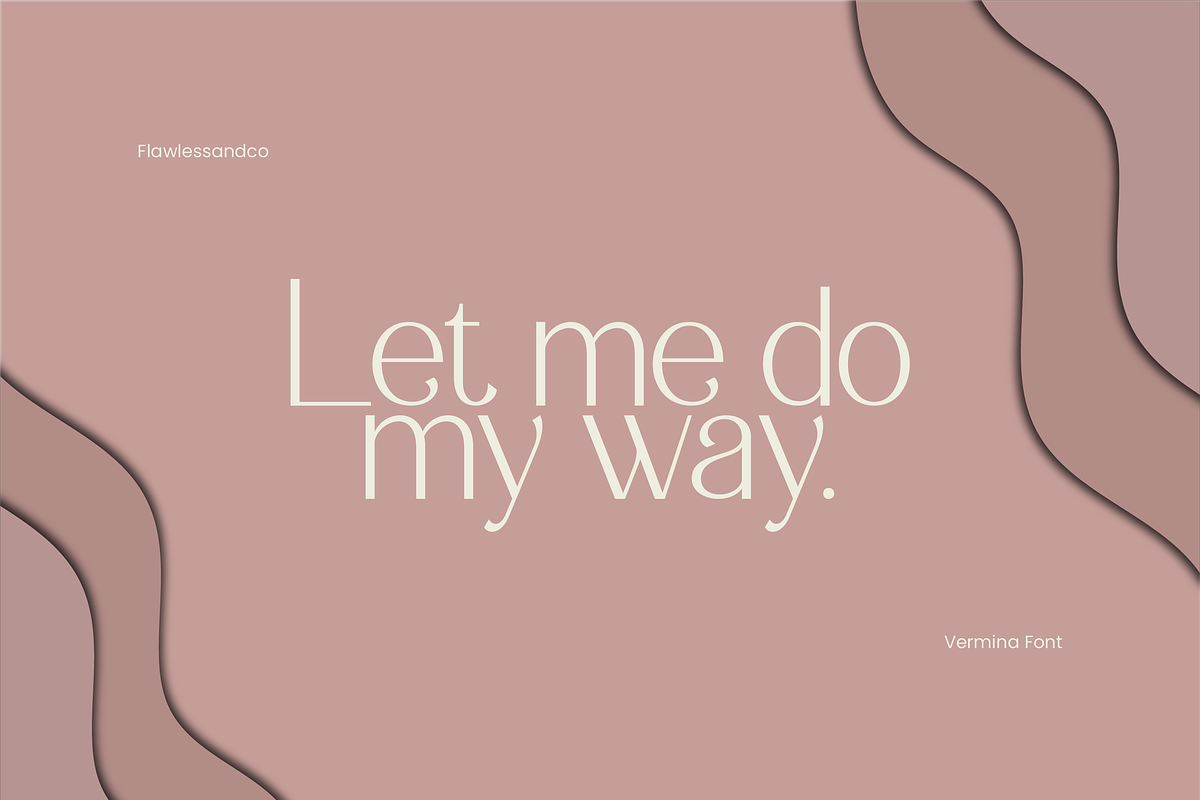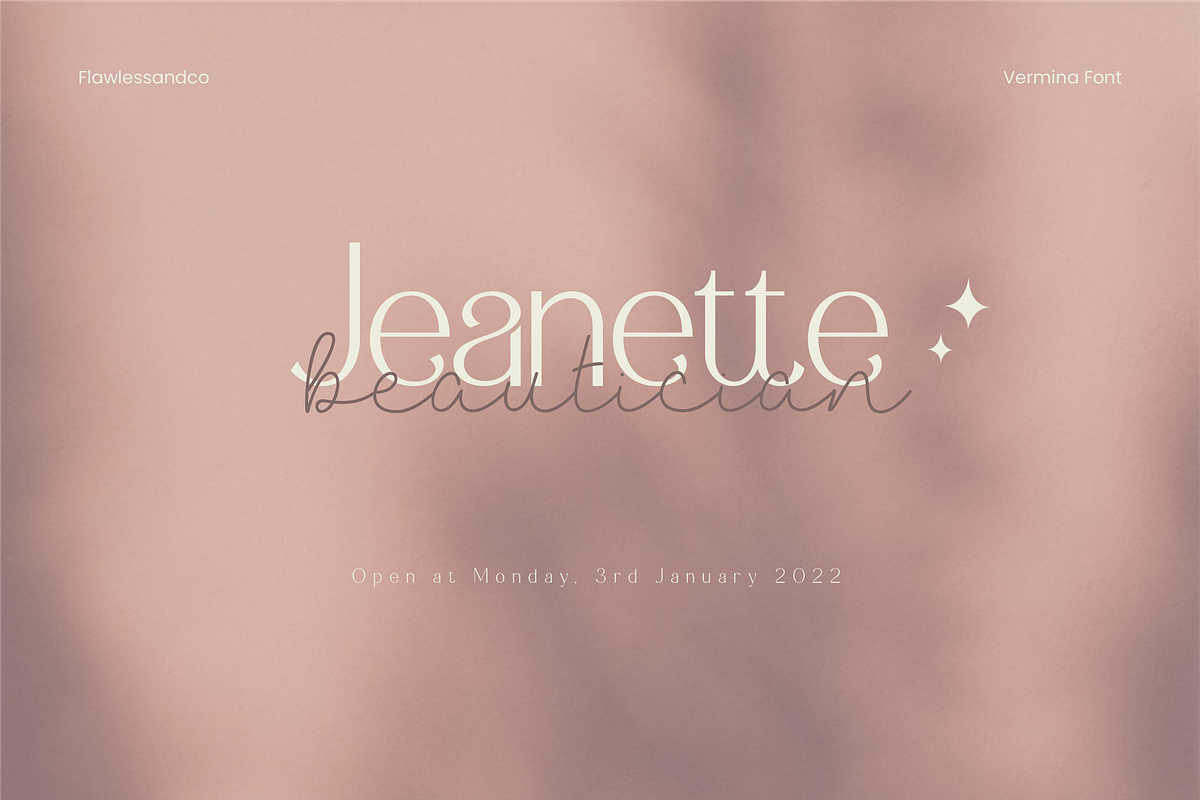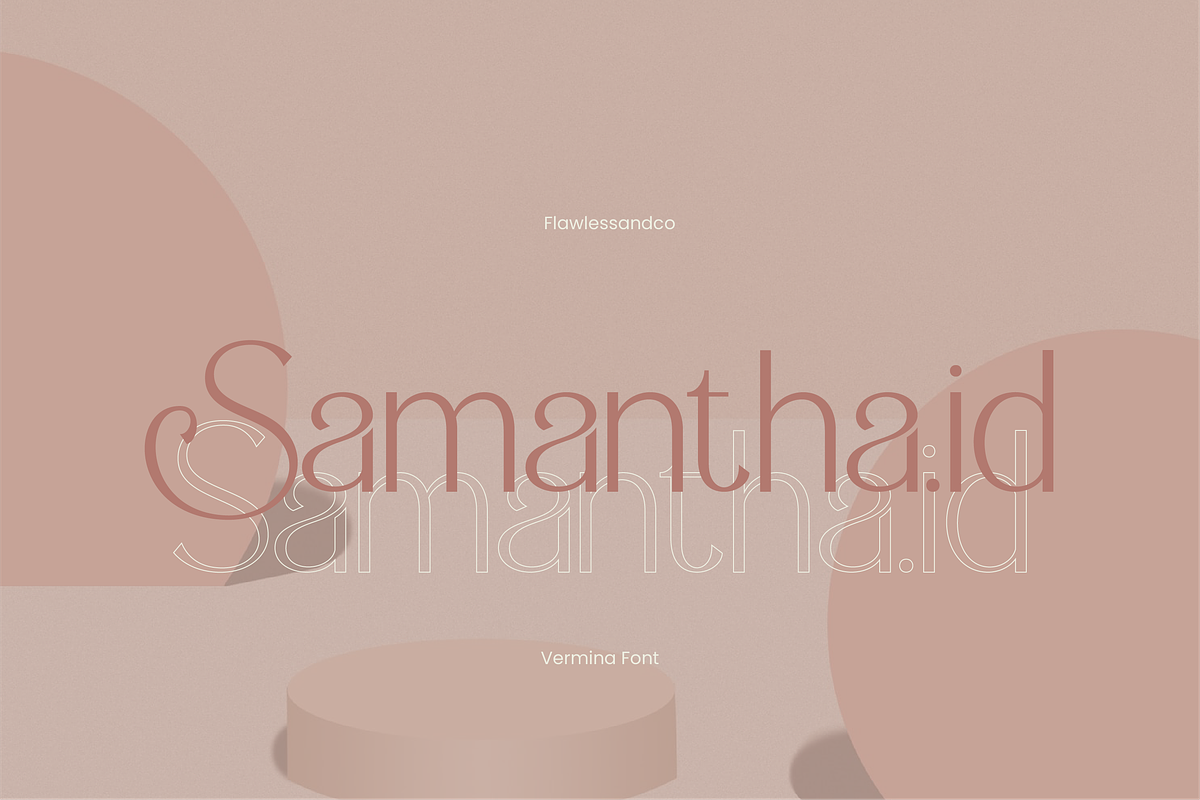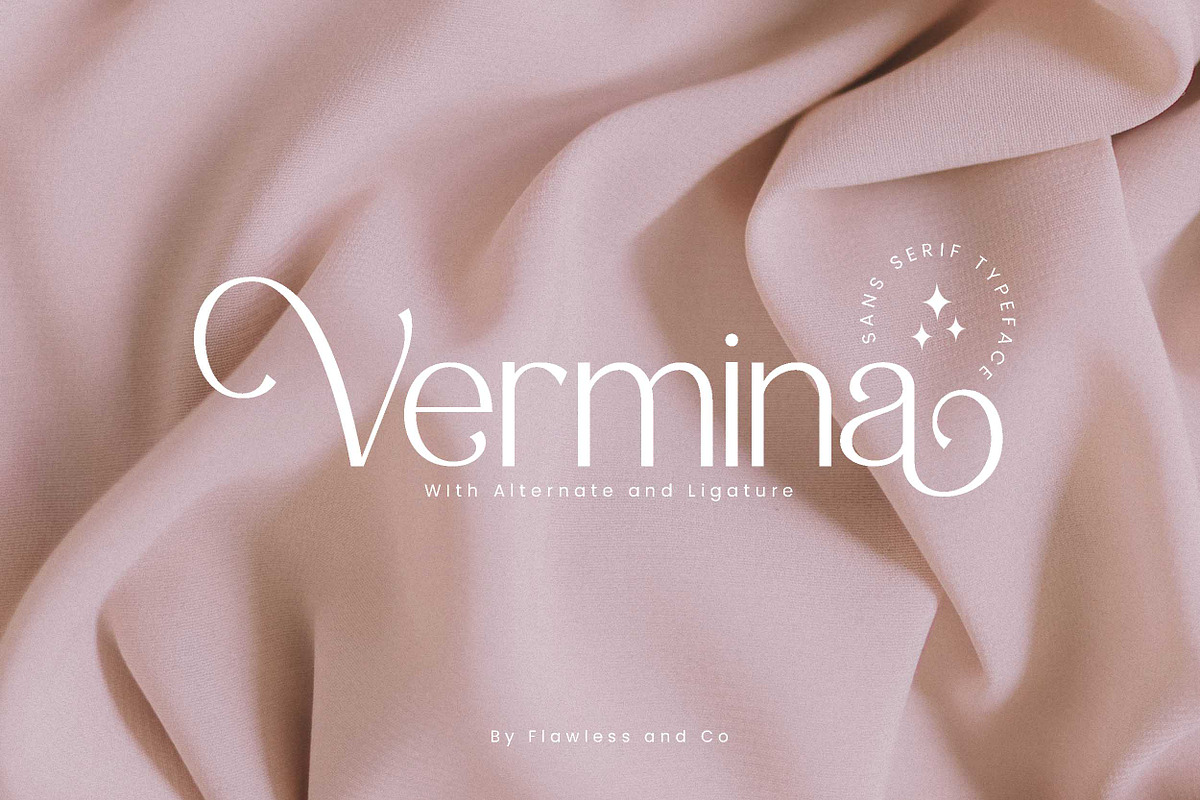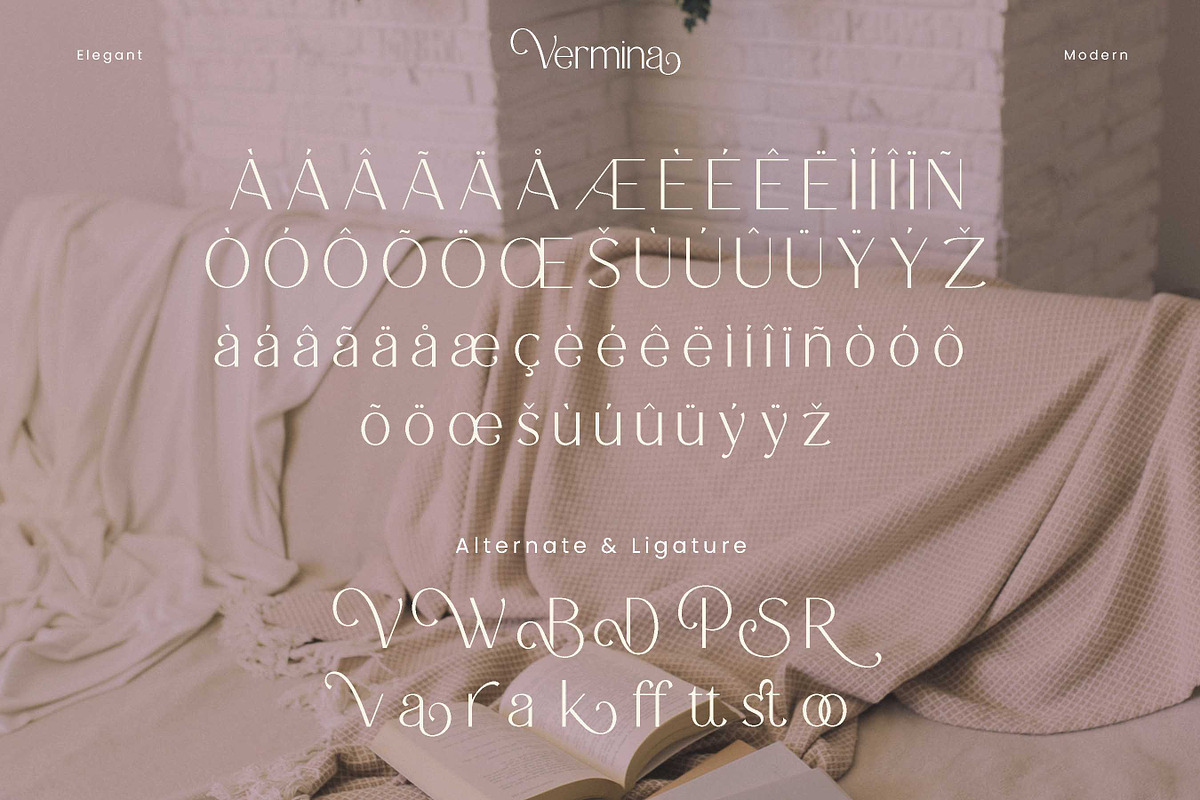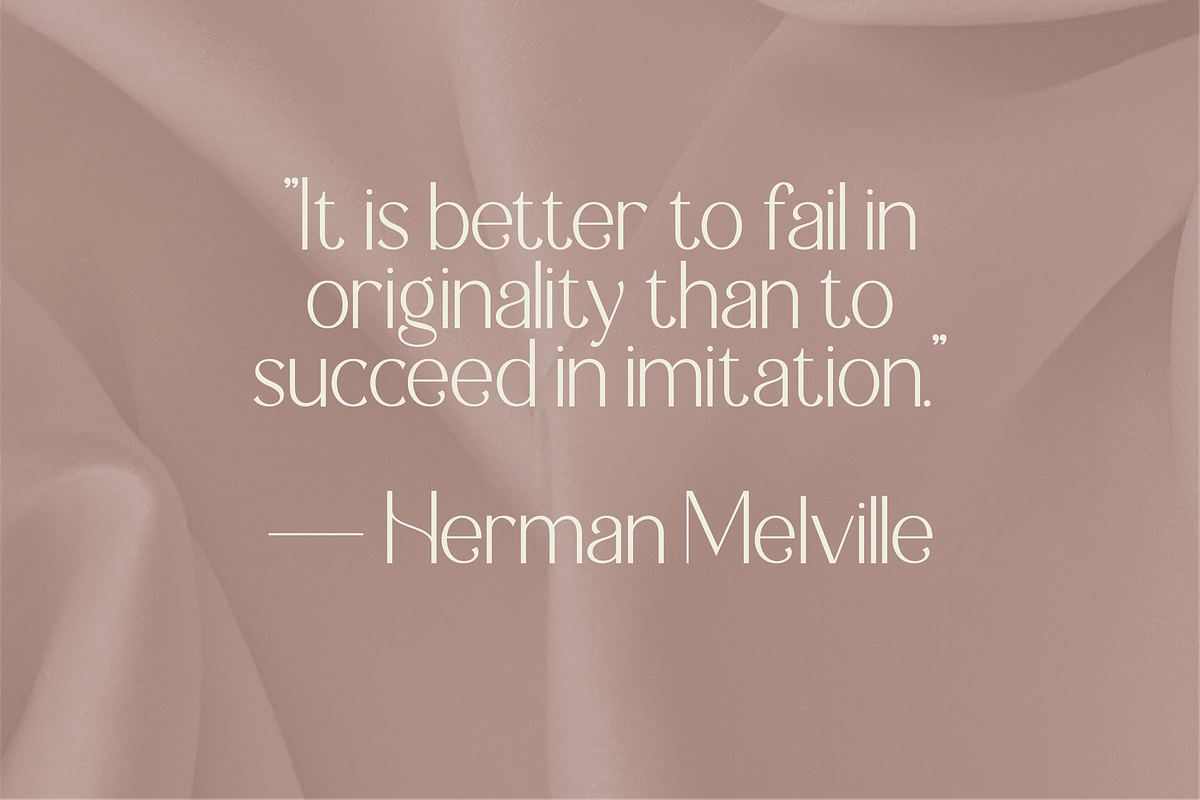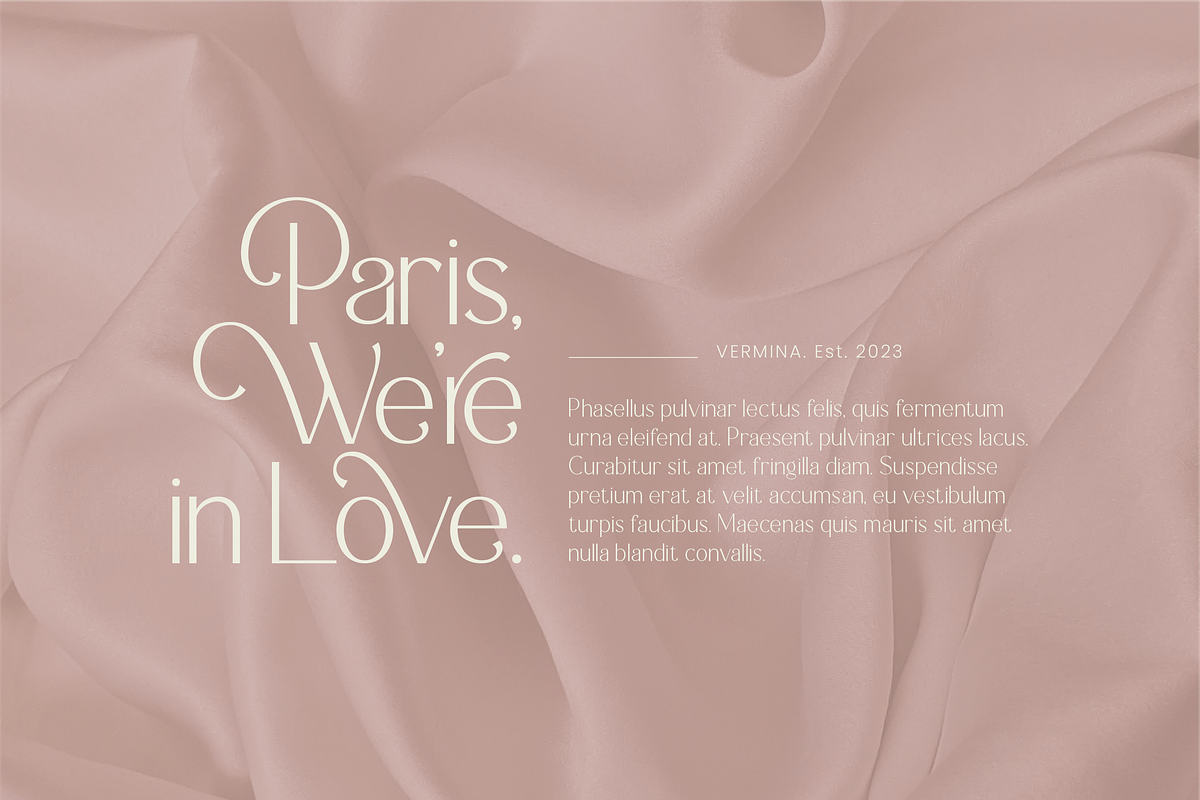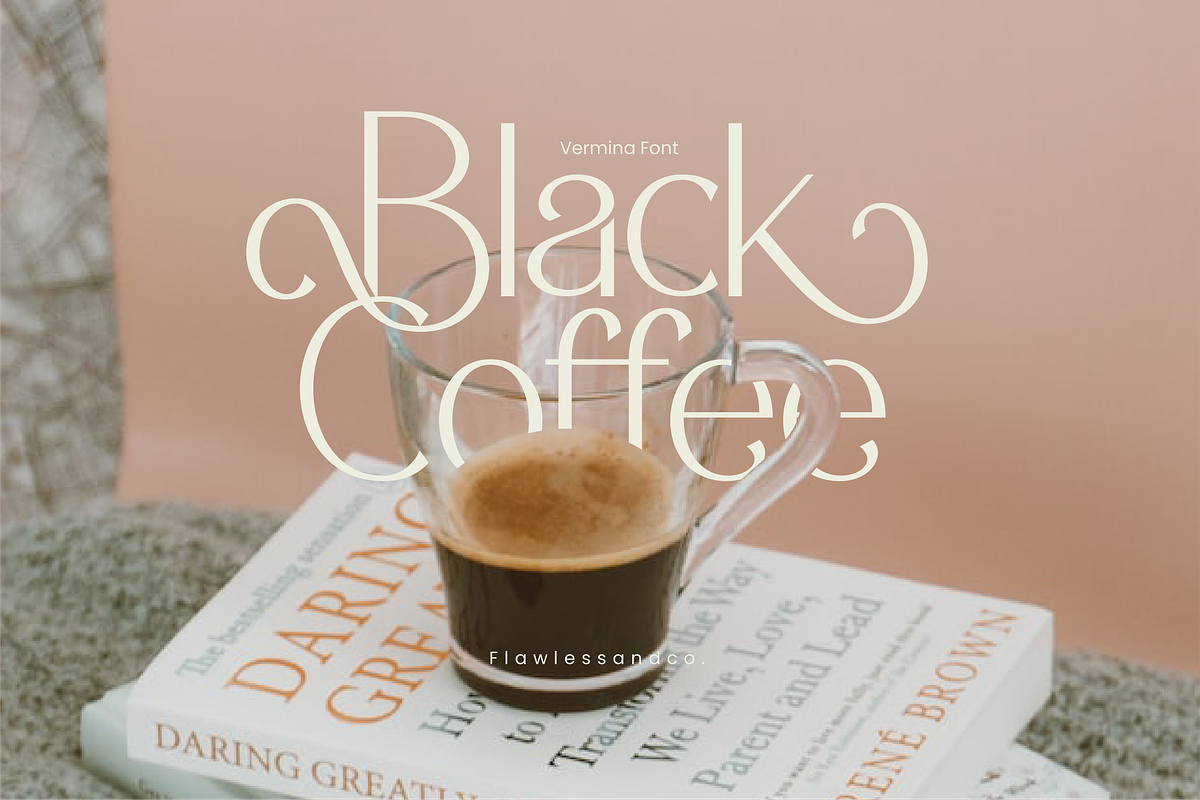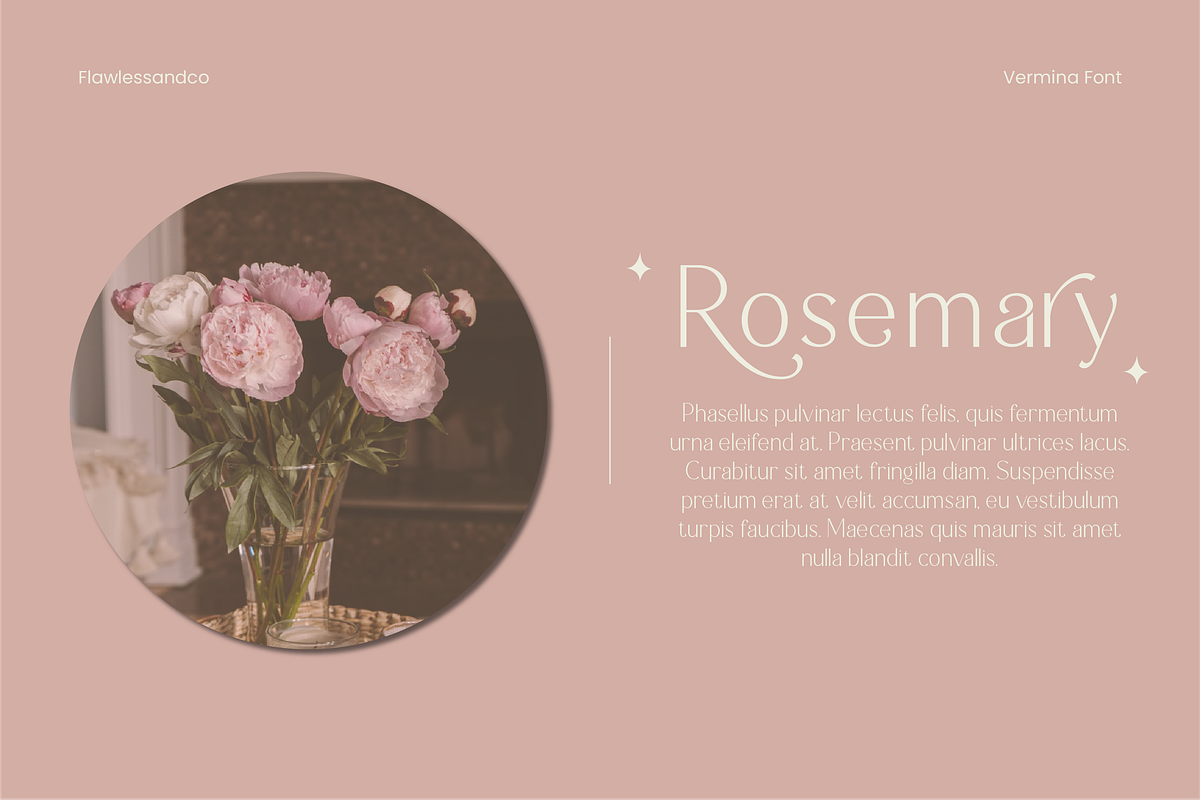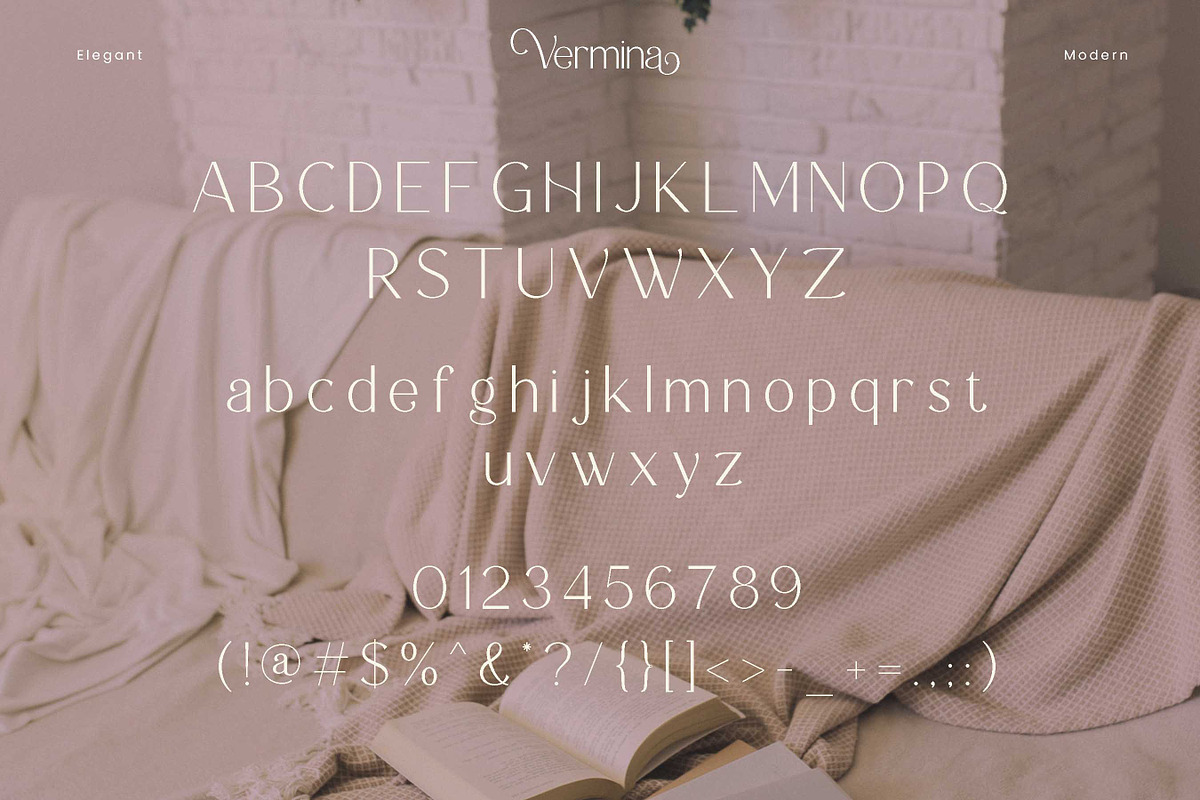
Vermina - Alternate Sans Serif
Vermina is a sans serif font with some various alternates and ligatures that suitable for branding, business, logos, and others
Multilingual Uppercase alphabet A-Z Lowercase alphabet a-z Alternate Character Numbers 0-9 Some punctuation